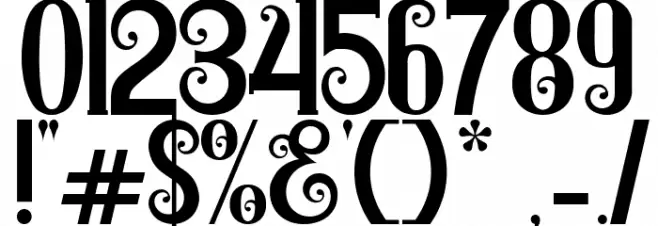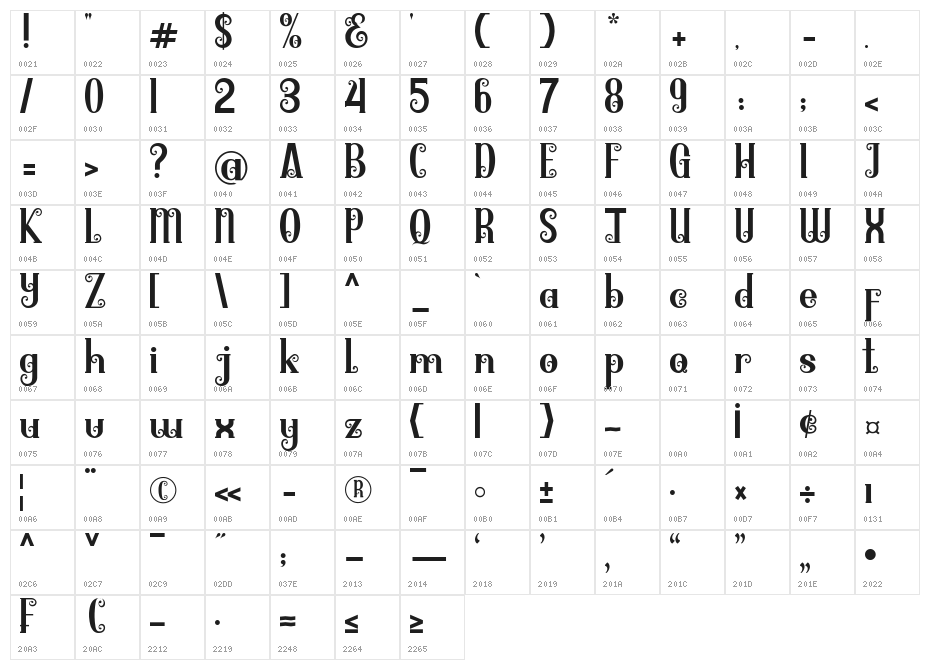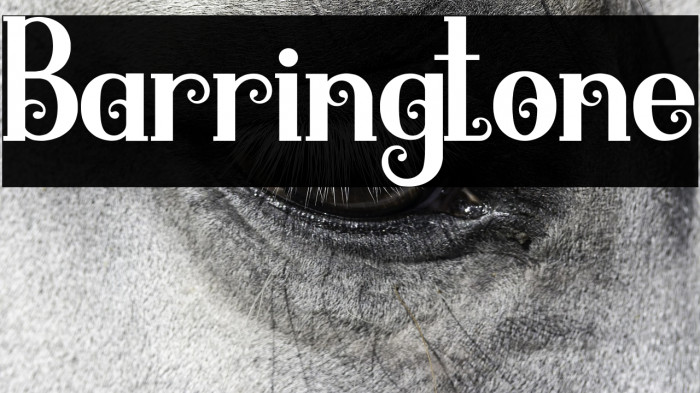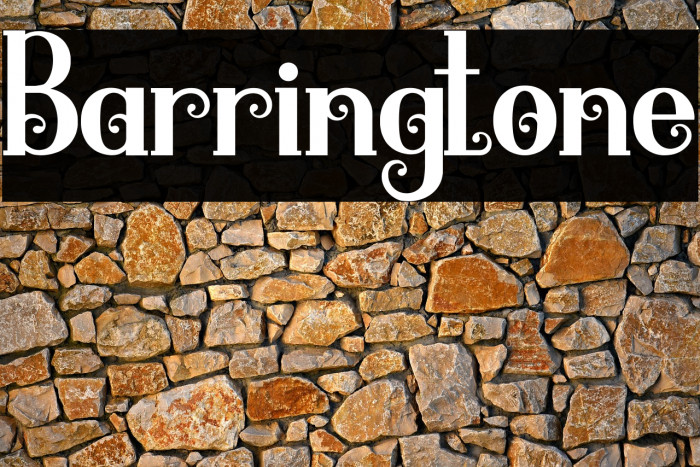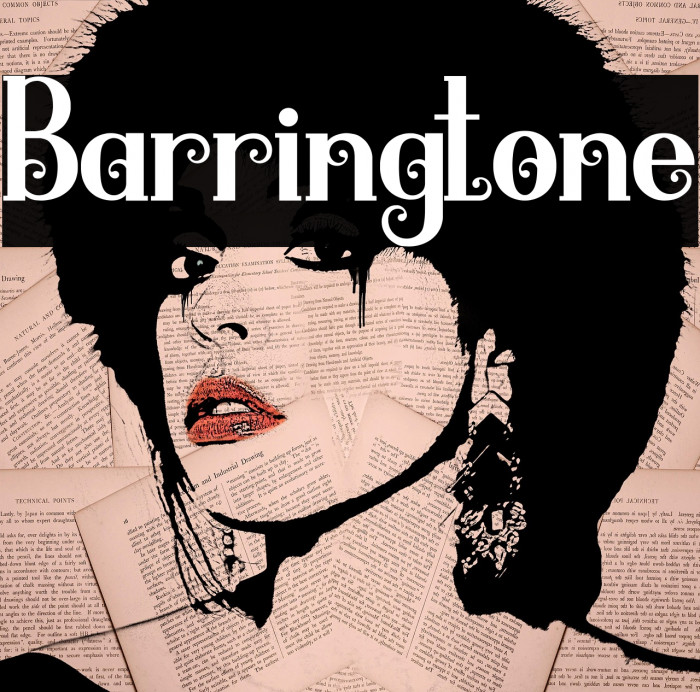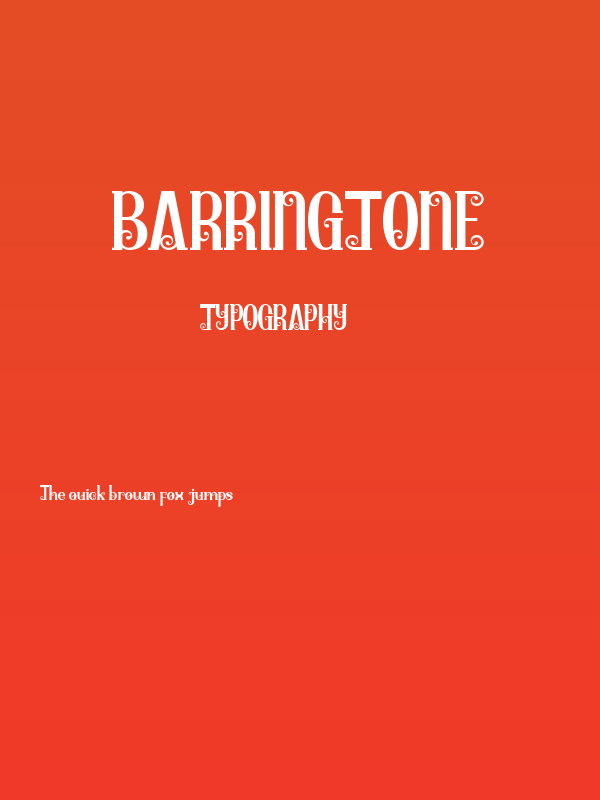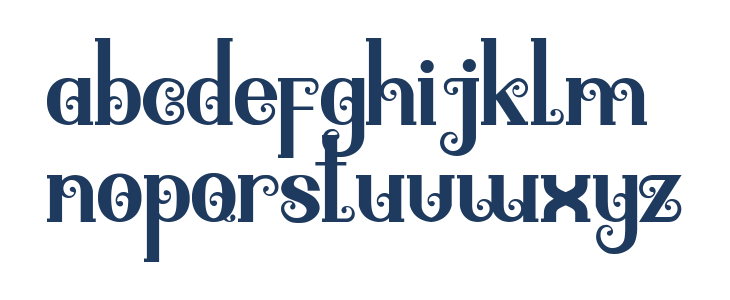
Barringtone Font
Barringtone Description
This font is a decorative typeface characterized by its playful and whimsical design. Each letter features unique swirls and curls, adding an artistic flair to the overall appearance. The uppercase and lowercase letters maintain a consistent style, with bold strokes and intricate detailing. Numbers and special characters are equally ornate, making this font suitable for creative and eye-catching designs. The font's distinct personality makes it ideal for projects that require a touch of elegance and creativity.